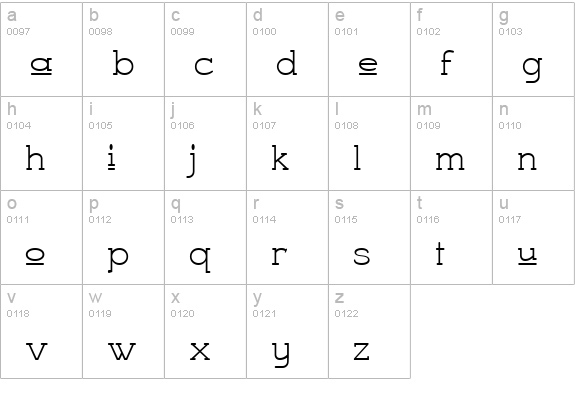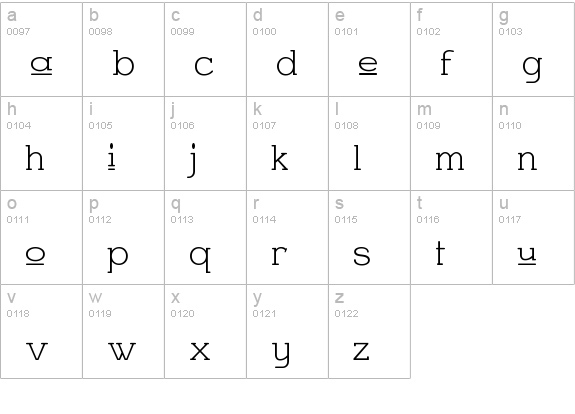
Charrington Upper Font Details
Charrington Upper font is a stunning display typeface that exudes elegance and sophistication. With its bold and distinctive letterforms, this font is perfect for creating eye-catching headlines, logos, and branding materials. The striking uppercase characters have a timeless appeal that will make your designs stand out from the crowd. The best part? Charrington Upper font is completely free to download at FontsMarket.com. Take advantage of this incredible offer and add this versatile font to your collection today. Whether you're working on a print project or a digital design, Charrington Upper font is sure to make a lasting impression. Don't miss out on this opportunity to elevate your typography game with this exquisite font. Download Charrington Upper font now and unleash your creativity!